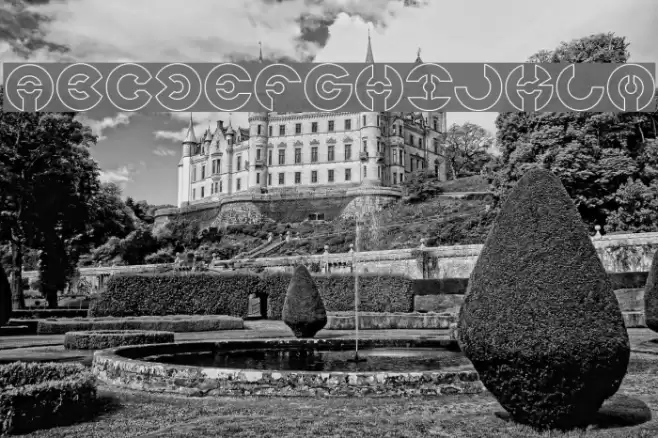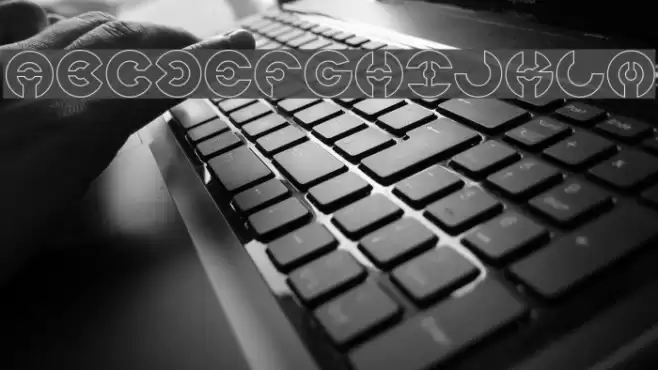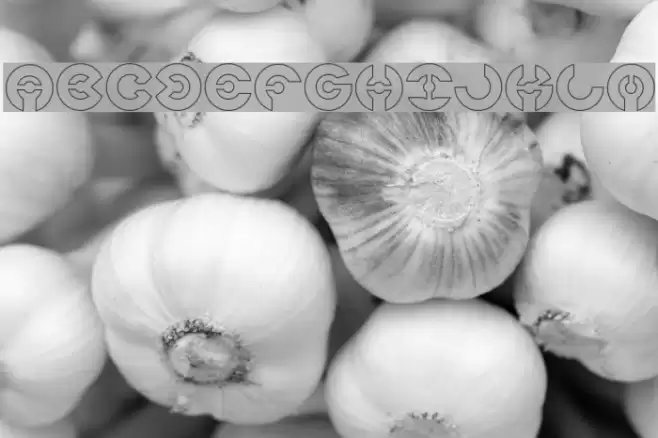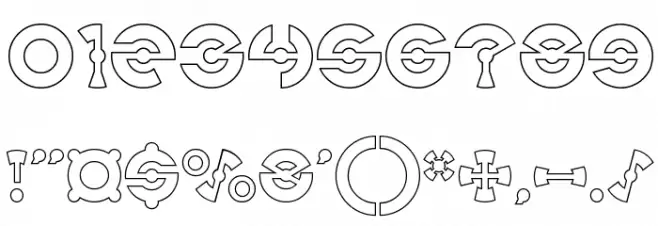
JAMES GLOVER-Hollow Font
JAMES GLOVER-Hollow Description
This font features a unique hollow design with a futuristic and geometric aesthetic. Each character is crafted with a circular motif, creating a sense of unity and cohesion across the alphabet. The letters are bold and distinct, with a playful yet structured appearance. The hollow nature of the font gives it a light and airy feel, making it suitable for creative and modern applications. The consistent use of circular elements provides a rhythmic flow, while the sharp edges add a touch of edginess. This font is ideal for projects that require a standout, eye-catching typeface.
A futuristic, geometric hollow font with circular motifs and bold, structured characters from Uncategorized fonts.
- Proposed Projects: Ideal for sci-fi themed designs, modern logos, digital artwork, and innovative branding projects.
- Use Case: Logos, Headlines, Posters